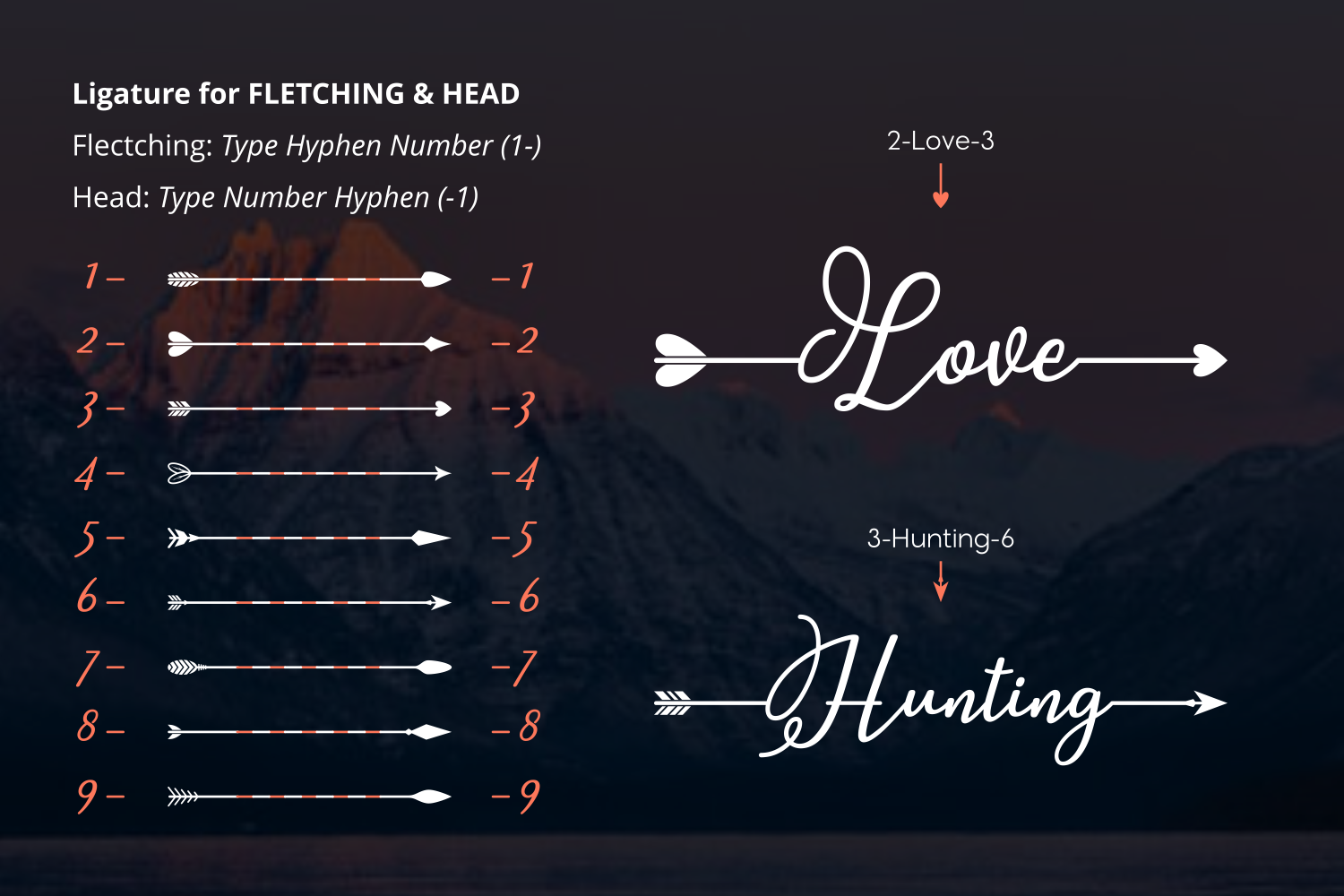
The Arrowlicious Font: A Bohemian Dream for Designers and Crafters
I’ll never forget the moment I stumbled upon the Arrowlicious font. I was working on a project for a client who wanted a bohemian-inspired design, and I was struggling to find the perfect font. That’s when I discovered Arrowlicious, a stunning handwritten font that features connecting arrow tails and heads. It was love at first sight! 💕
With Arrowlicious, I was able to create beautiful and unique typographic designs that exceeded my client’s expectations. The font’s versatility and elegance make it perfect for designers, crafters, and creative hobbyists. In this article, I’ll share my experience with Arrowlicious, including its features, how to use it on different platforms, and some similar fonts you might love.
An Honest Review of Arrowlicious
- 💫 Unique and beautiful connecting arrow tails and heads
- ✅ Elegant and bohemian-inspired design
- 🌈 Perfect for creating stunning typographic designs
- 🤩 Offers up to 81 unique combinations
- 🤔 Some users might find the font a bit tricky to use for beginners
- ⚠️ Limited availability of certain glyphs or stylistic alternates on certain platforms
- Experiment with different OpenType features, such as connecting arrow tails and heads, to create unique combinations.
The Designer Inspiration Behind Arrowlicious
The creator of Arrowlicious is a talented designer who drew inspiration from the bohemian lifestyle and the beauty of handwritten typography. With a passion for creating unique and elegant fonts, the designer crafted Arrowlicious to be a versatile and stunning font that would inspire designers and crafters to create something truly special.
Q: What is the Arrowlicious font?
A: The Arrowlicious font is a stunning handwritten font that features connecting arrow tails and heads, perfect for creating beautiful and bohemian-inspired typographic designs.
Q: How many unique combinations can I create with Arrowlicious?
A: With Arrowlicious, you can create up to 81 unique and beautiful combinations.
Q: Is Arrowlicious suitable for beginners?
A: While Arrowlicious is a beautiful and elegant font, some users might find it a bit tricky to use for beginners. However, with a little practice, you’ll be able to master its OpenType features and create stunning designs.